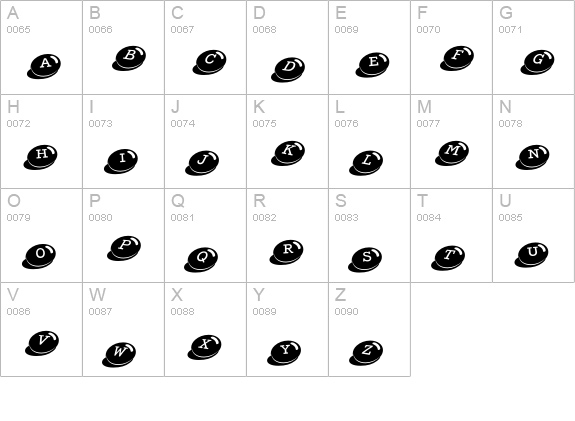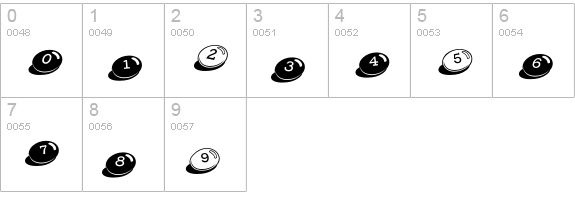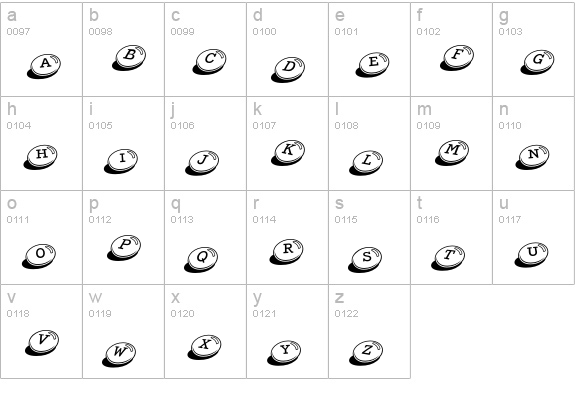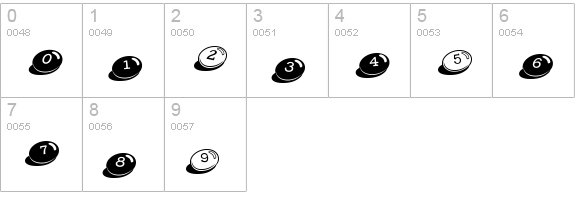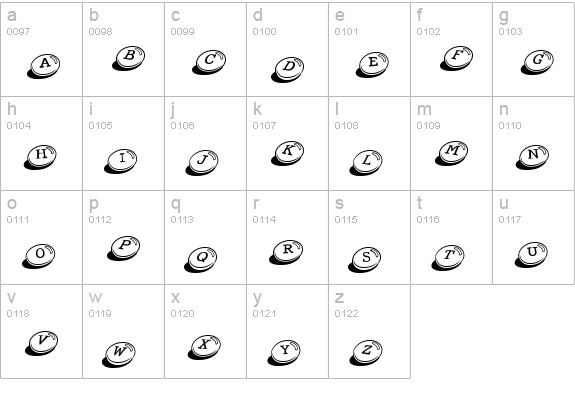
Introducing Candy Bits font, a whimsical and fun typeface that will bring a touch of playfulness to your designs. With its rounded edges and colorful appearance, Candy Bits is perfect for creating eye-catching posters, invitations, and social media graphics. This delightful font is available for free download at FontsMarket.com, making it accessible to all designers looking to add a sweet and charming element to their projects. Embrace the joy of Candy Bits and let your creativity shine with this free and delightful font!